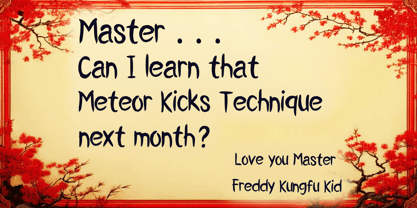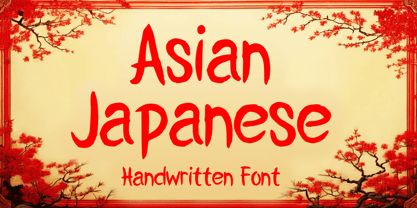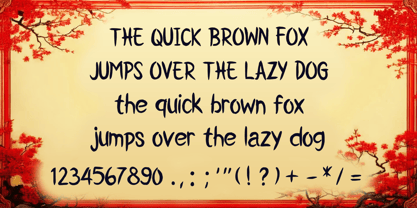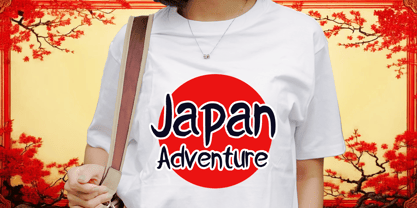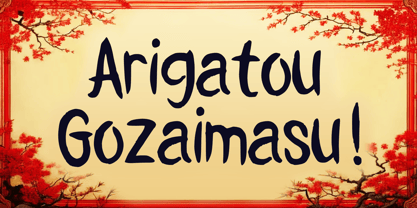
Asian Japanese
by Mvmet
The Asian Japanese Font Family was designed by Gabriel Valentinus and published by Mvmet. Asian Japanese contains 1 styles. More about this family
Asian Japanese is a beautiful japanese, asian handwritten display brush font. You can use it for anything ranging from t-shirts, book designs, and greeting cards to stickers and posters, packaging designs, or anything that needs a casual touch, it will be your perfect font to pick. Fall in love with its incredibly versatile style, and use it to create lovely designs!
Designers: Gabriel Valentinus
Foundry: Mvmet